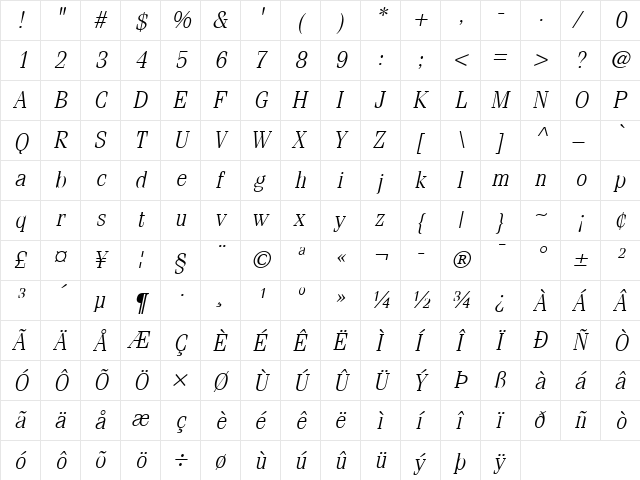
ITCFenice LT Light Italic Font Preview
Design Context for ITCFenice LT Light Typeface
ITCFenice LT Light offers clean, dependable letterforms without strong stylistic allegiance, making it a practical choice for designers who need flexibility. The dynamic lean of this cut emphasises speed and emphasis in any layout. The delicate stroke weight brings airiness and refinement to layouts.
Pro Tip: Try ITCFenice LT Light for annotation and caption copy alongside an upright companion — the contrast in angle creates a dynamic but ordered typographic system.